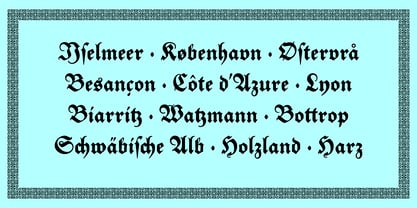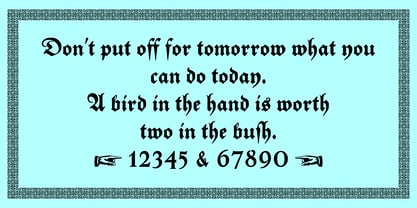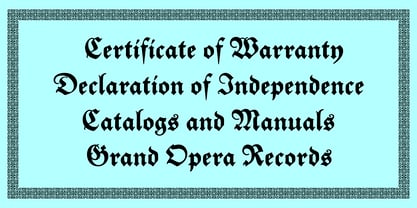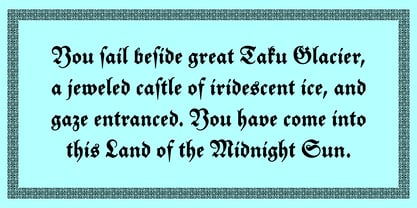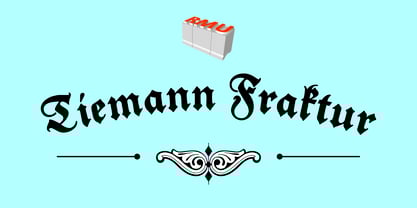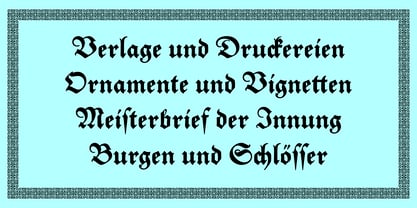
Tiemann Fraktur™
by RMU
The Tiemann Fraktur Font Family was designed by Walter Tiemann, Ralph M. Unger and published by RMU. Tiemann Fraktur contains 1 styles. More about this family
Walter Tiemann's Fraktur font, carefully redrawn and redesigned for modern use. This blackletter font contains the long s which can be reached in two ways. Either you use the OpenType feature Historical Forms, or you type the integral sign [∫] on your keyboard. Furthermore it's recommended to activate the OT feature Discretionary Ligatures.
Designers: Walter Tiemann, Ralph M. Unger
Foundry: RMU